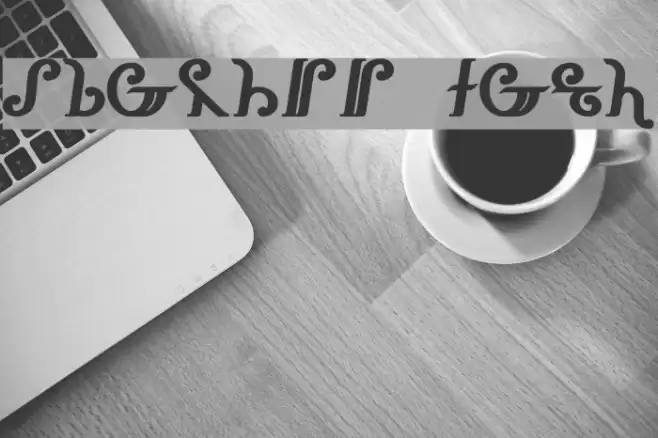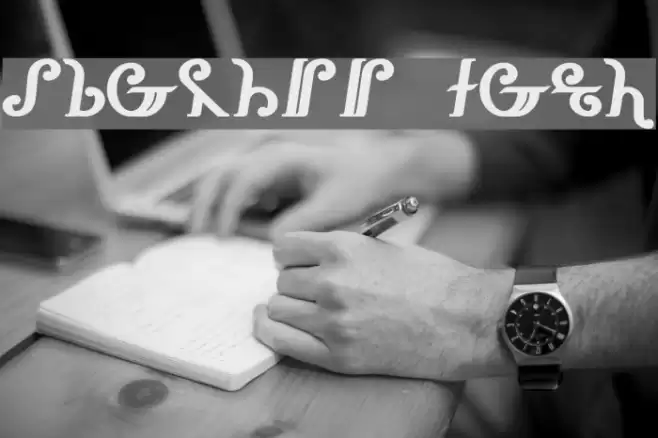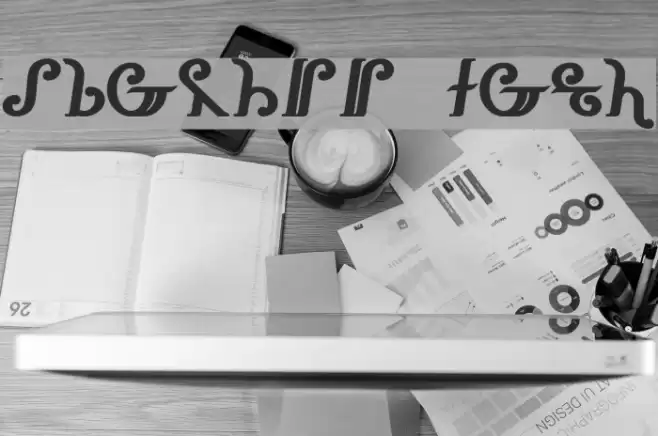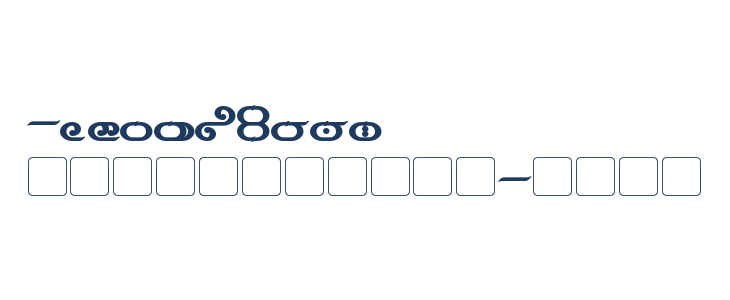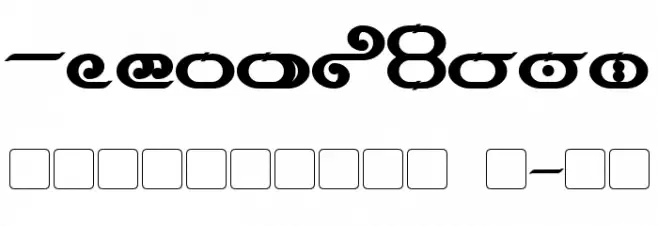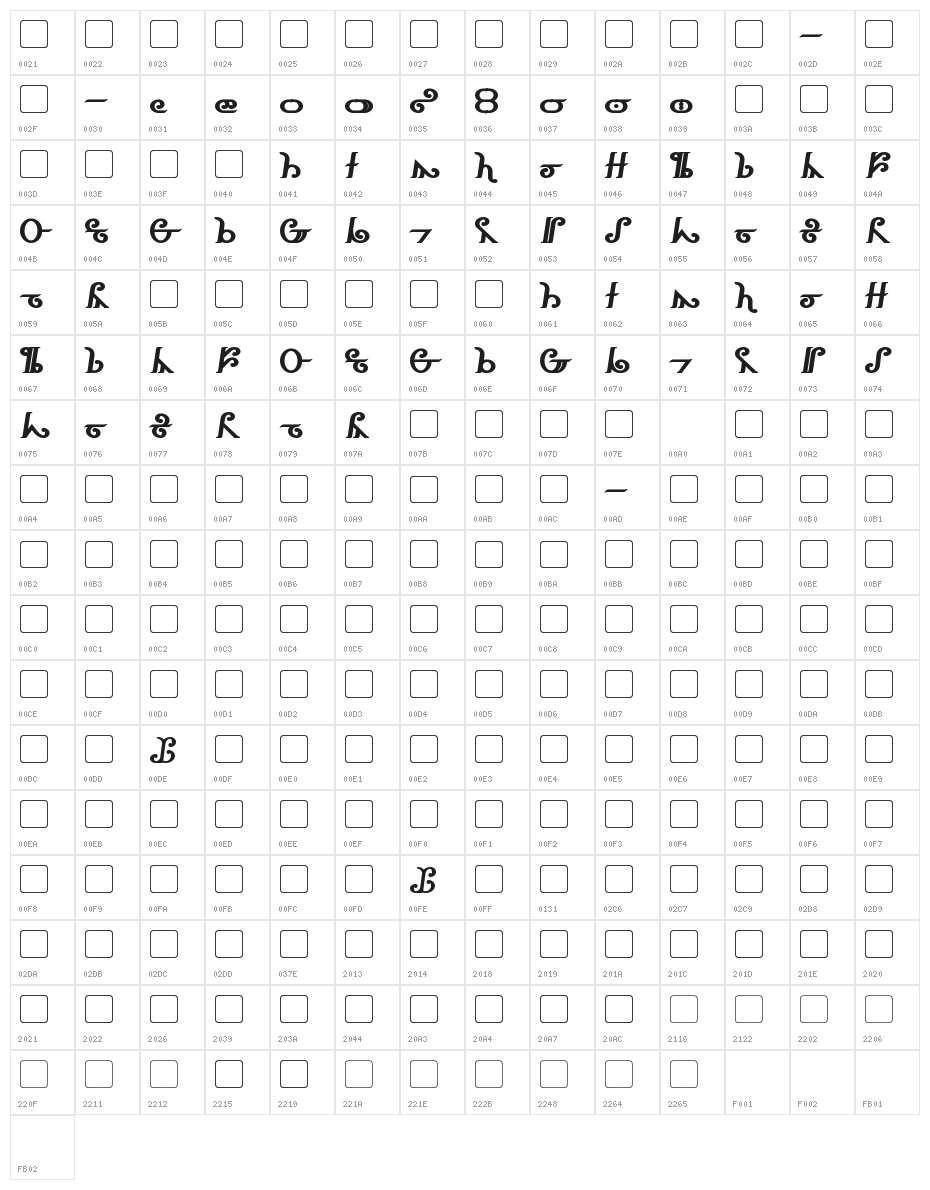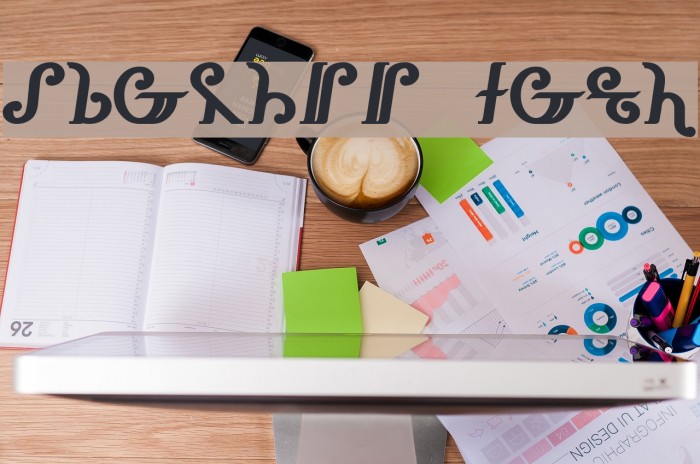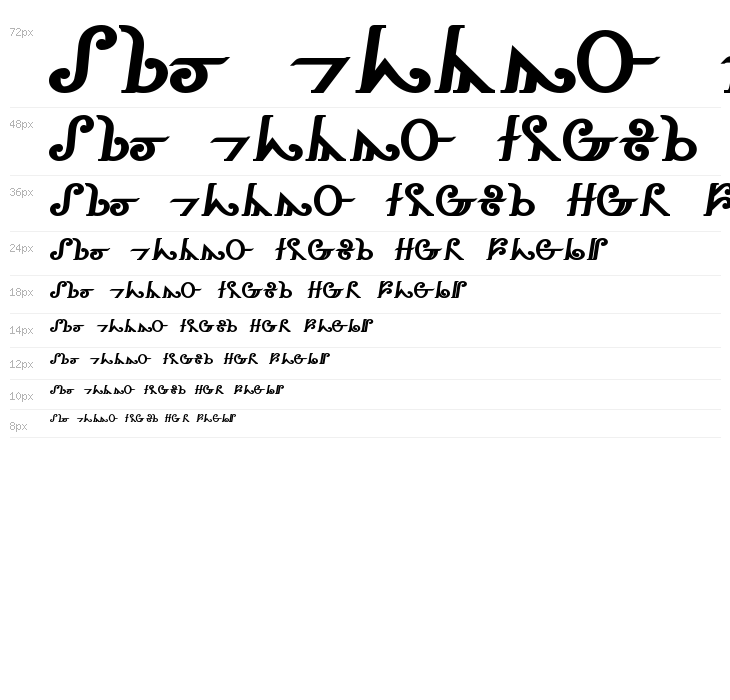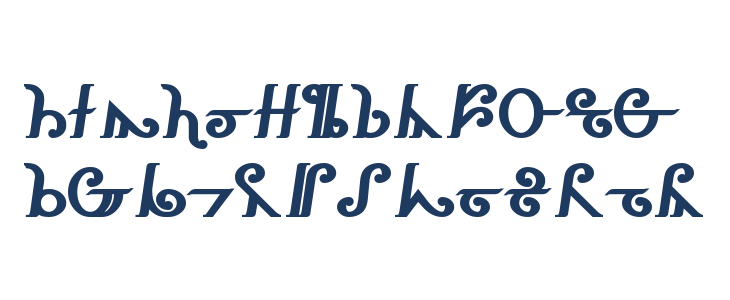
Thorass Bold Font
Thorass Bold Description
This font features a unique and decorative style with intricate curves and flourishes that give it an exotic and mystical appearance. The characters are bold and have a strong presence, making them suitable for attention-grabbing designs. The strokes are thick and consistent, providing a sense of uniformity across the alphabet. The font's design incorporates elements that resemble ancient scripts, adding a touch of fantasy and adventure. The special characters are equally ornate, maintaining the overall aesthetic. This font is ideal for projects that require a dramatic and thematic touch.
A bold, decorative font with intricate curves and a mystical appearance from Uncategorized fonts.
- Proposed Projects: Fantasy book covers, game titles, themed event posters, and adventure branding.